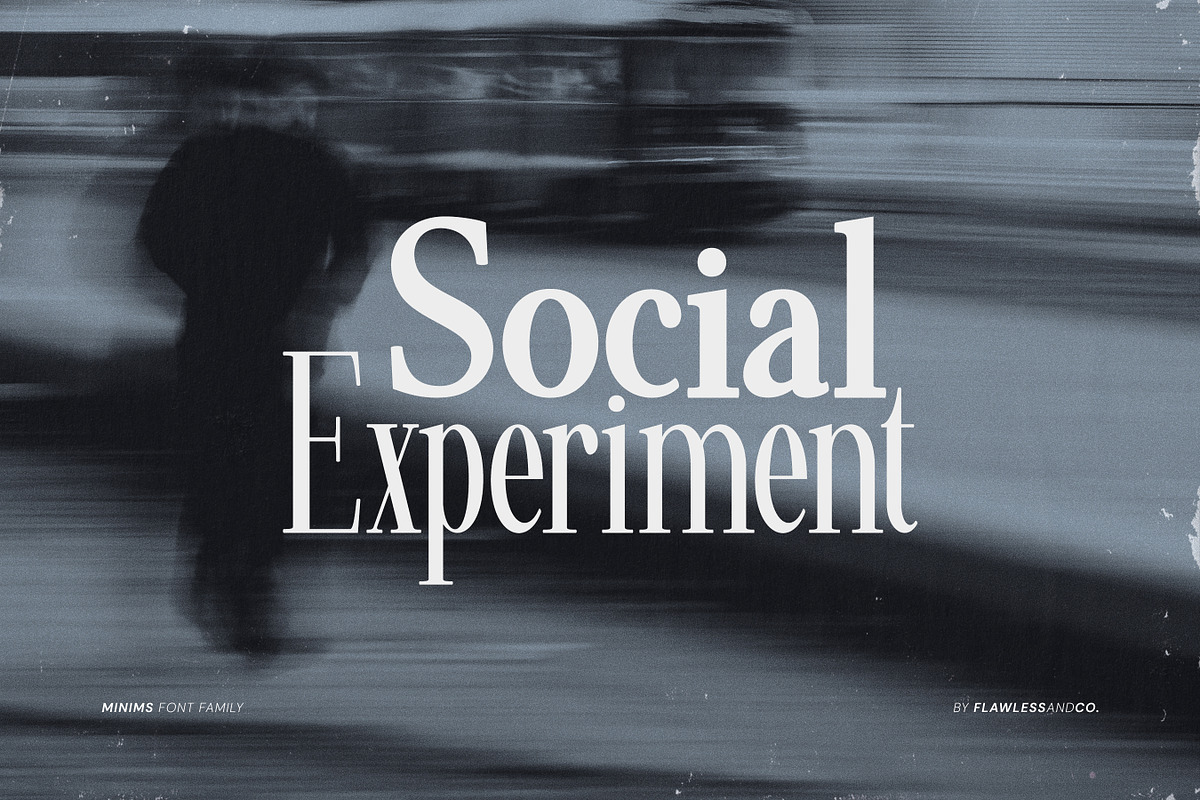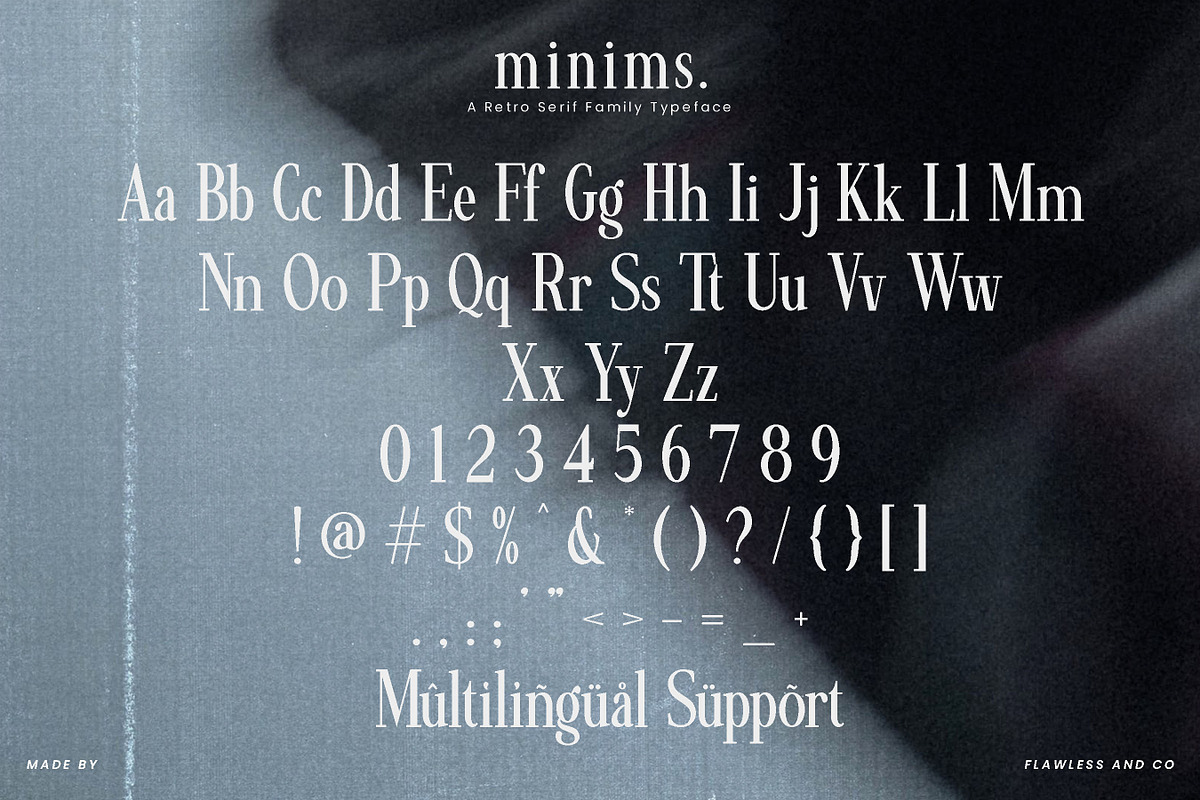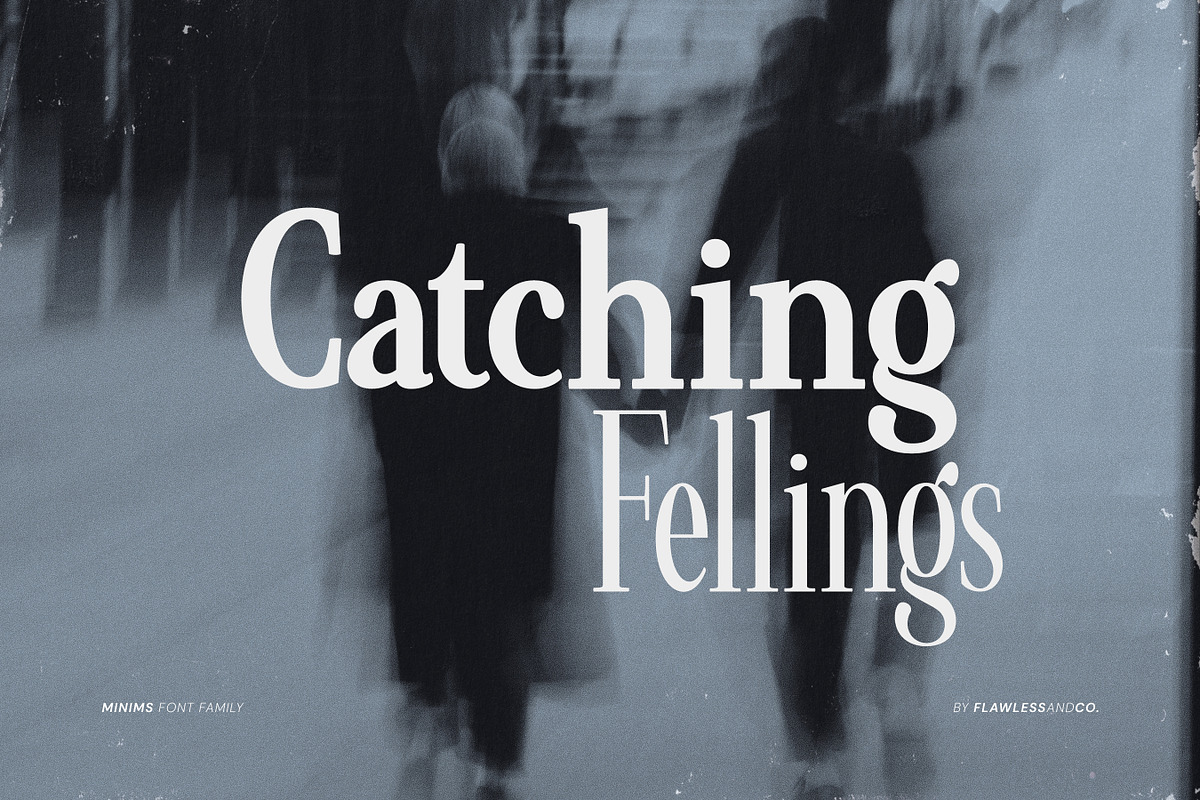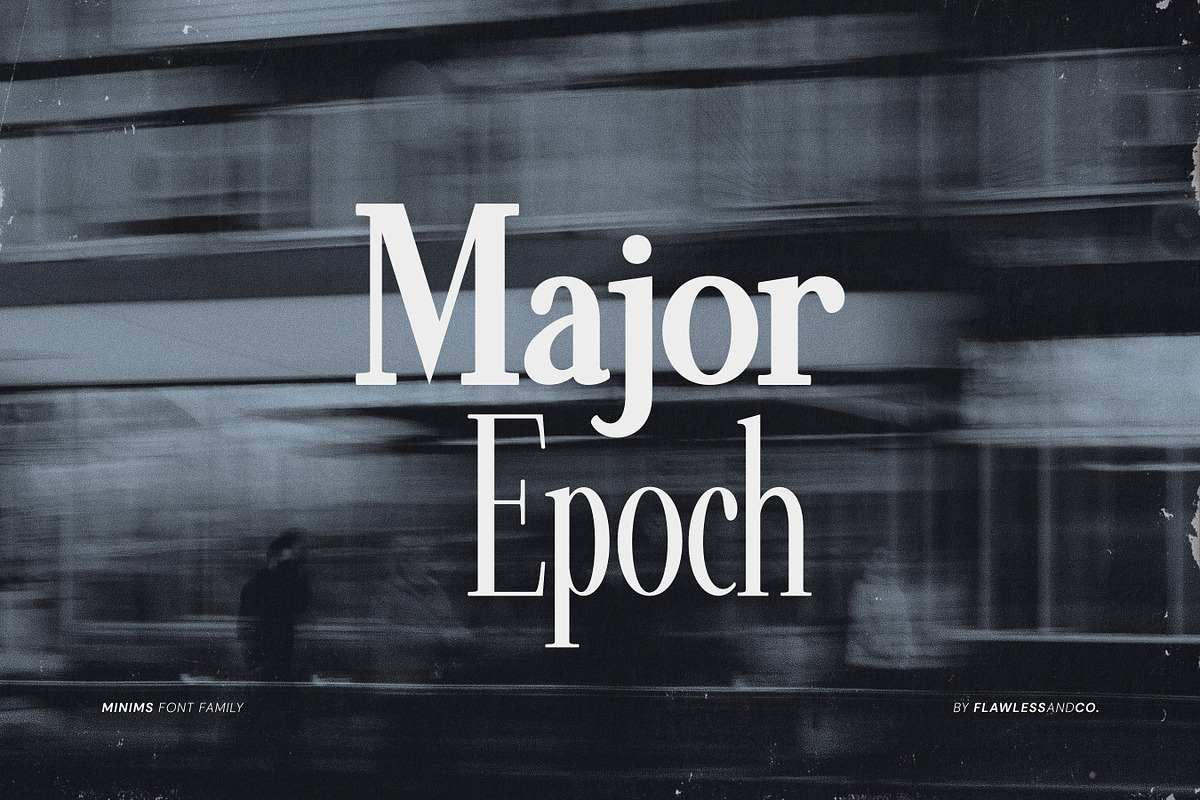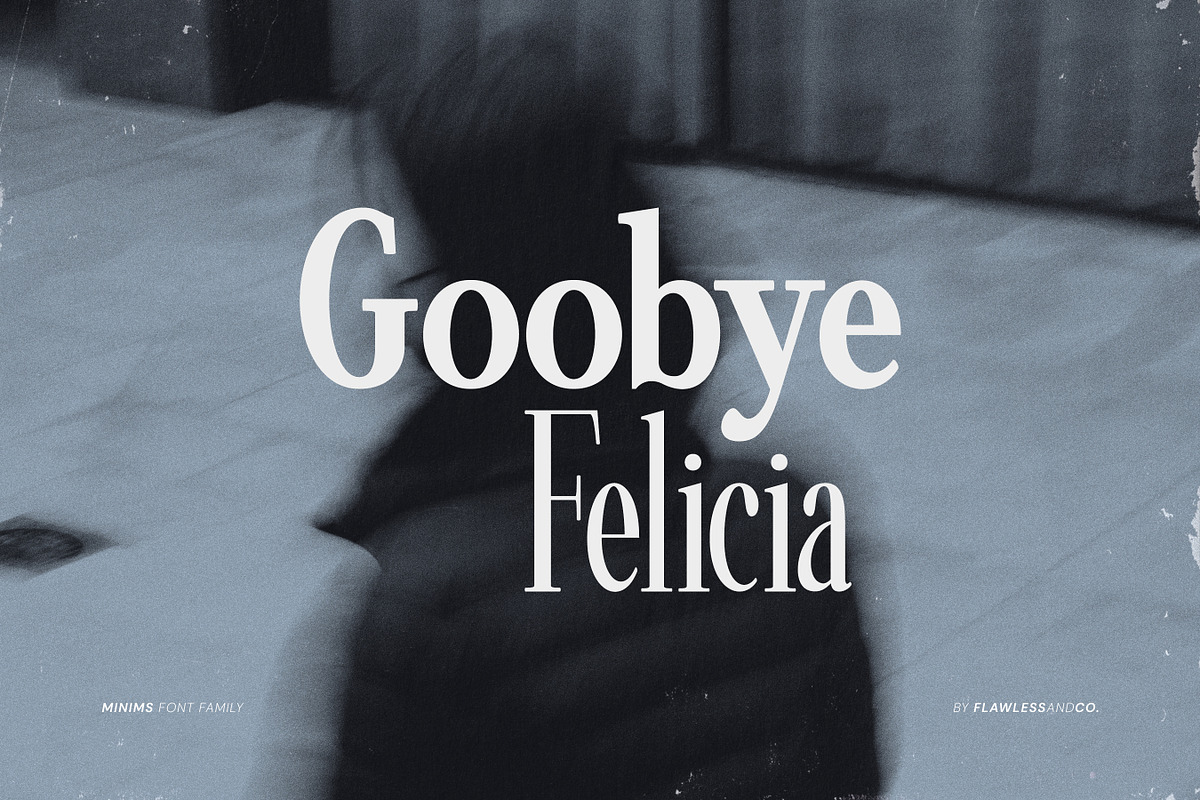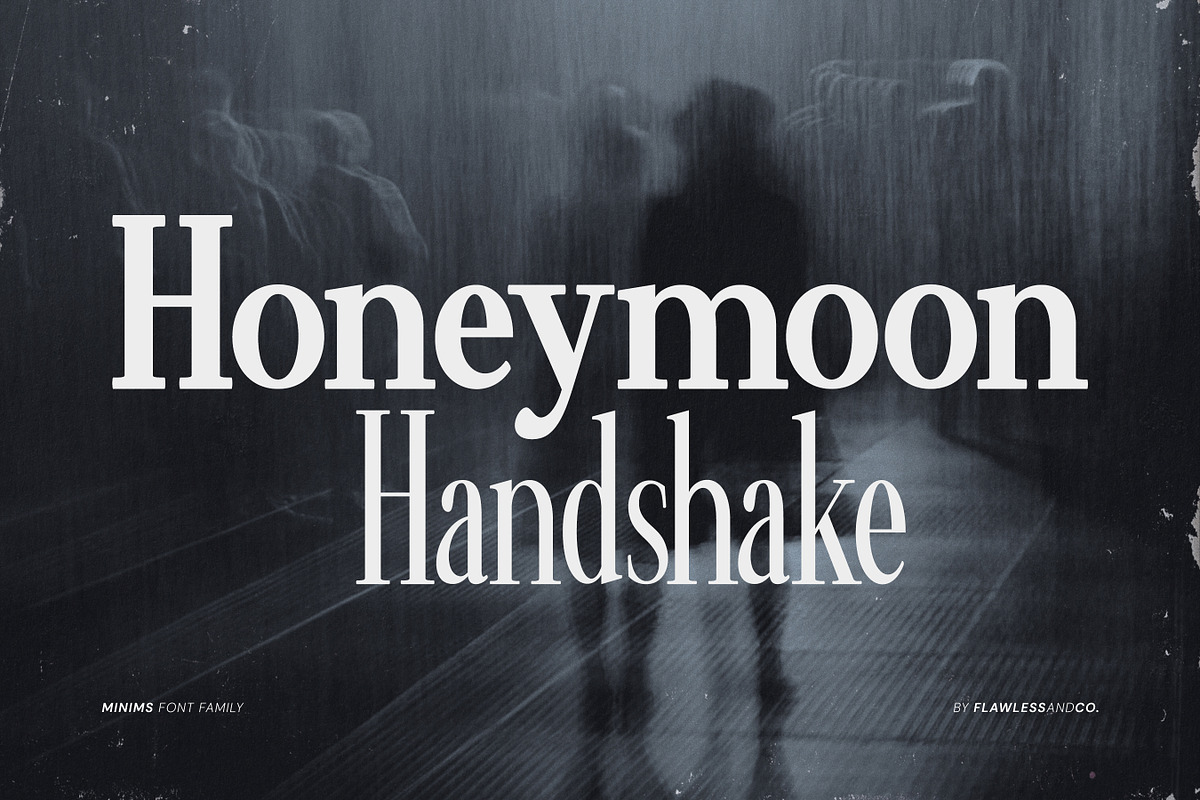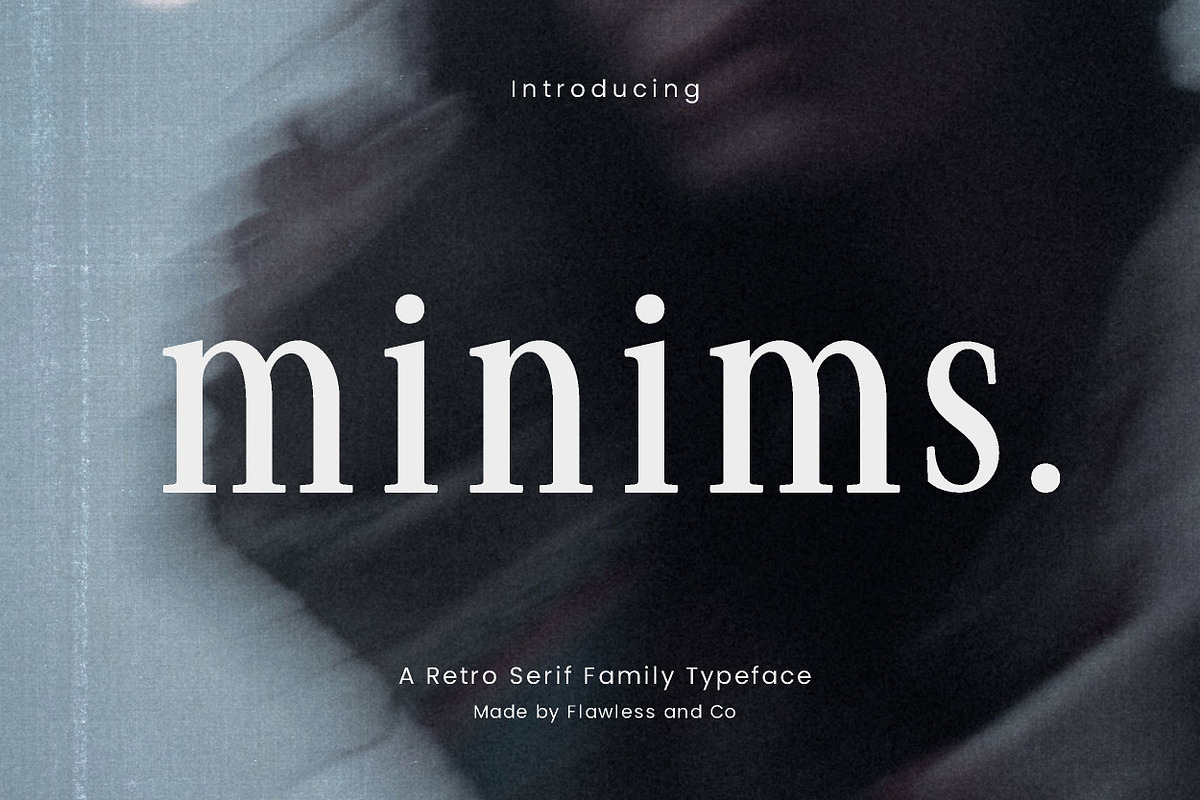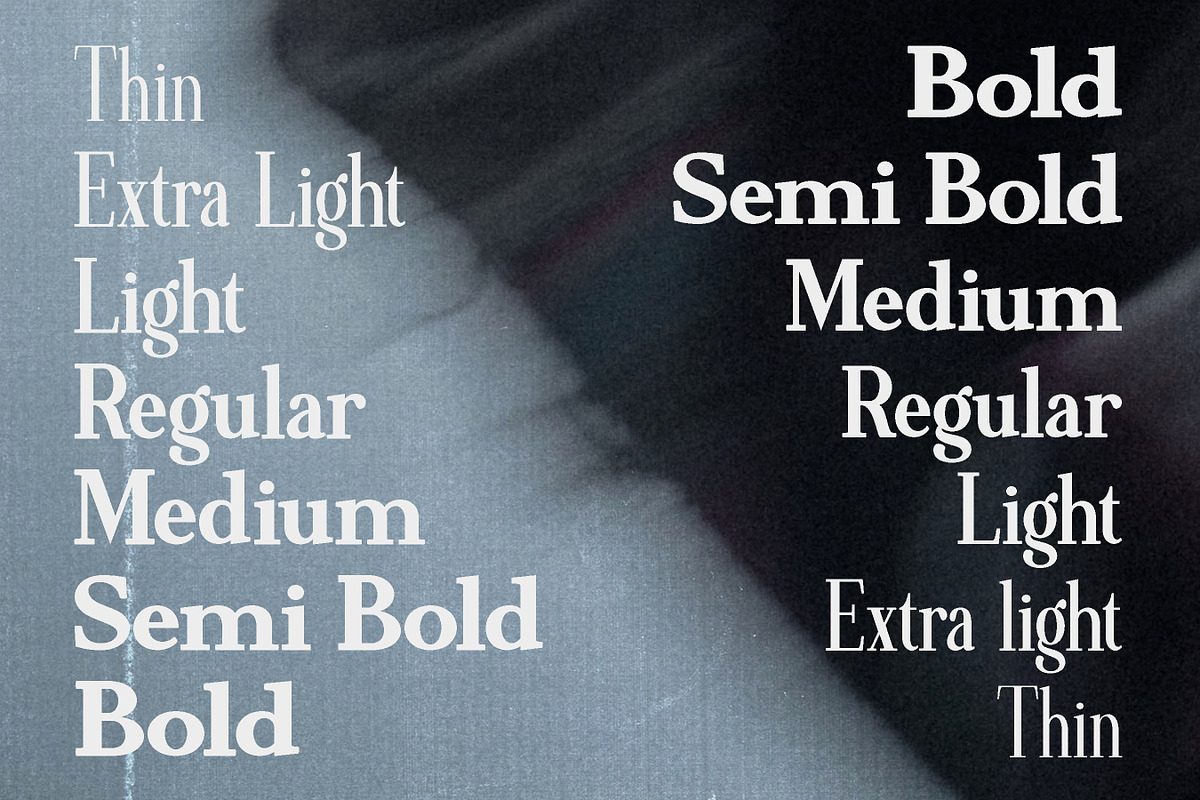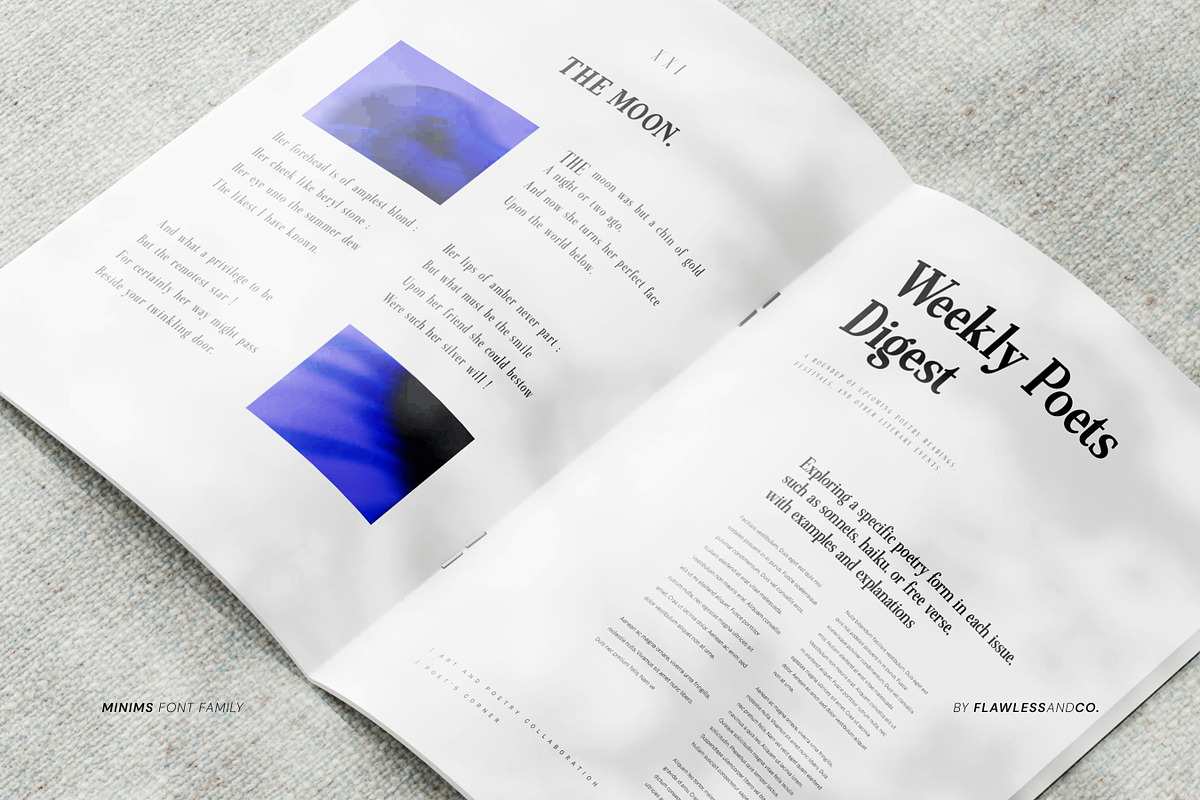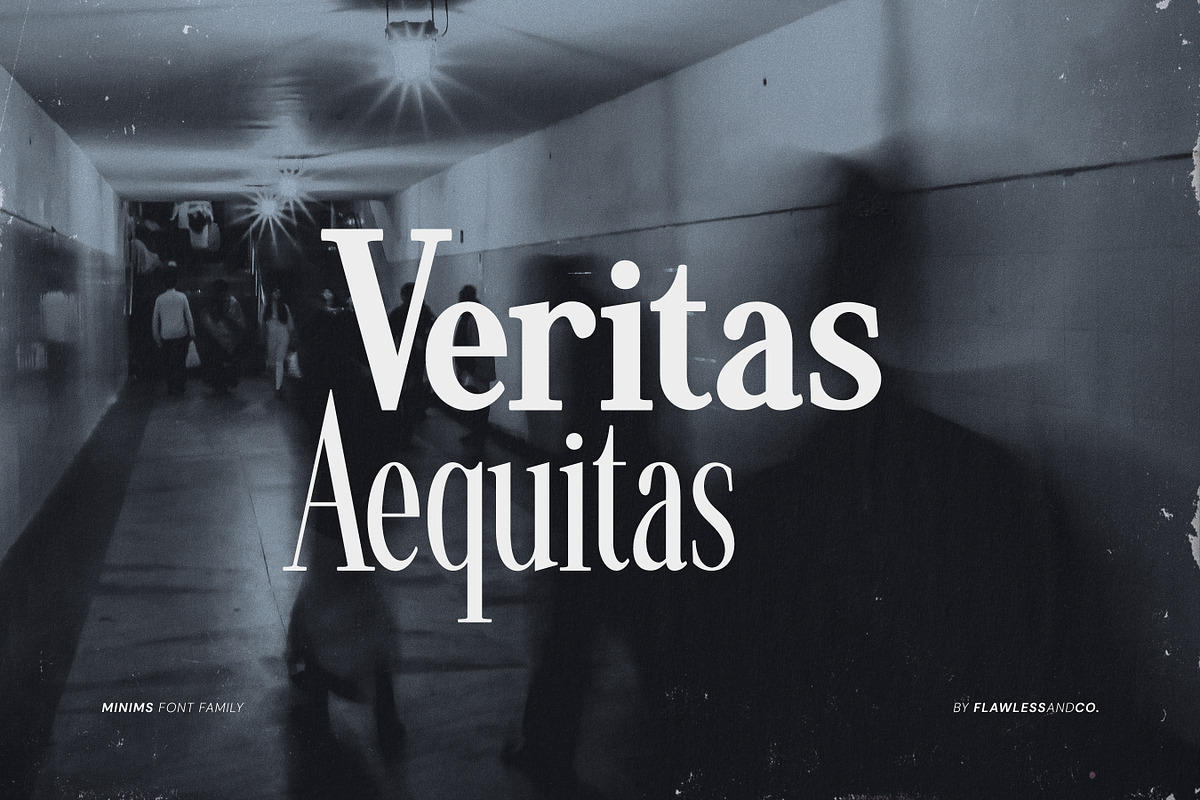
Minims - Serif Retro Family Series
Introducing "Minims - Retro Serif Family Font". Dive into the diverse world of typography with "Minims", a comprehensive typeface that goes beyond conventional limits. This font family is a symphony of styles, offering Thin, Extra Light, Light, Regular, Medium, Semi-Bold, and Bold variants, allowing you to craft designs that resonate with precision and personality. Explore the Versatility of Minims Retro Serif Family Series Font!
Multilingual Uppercase alphabet A-Z Lowercase alphabet a-z Numbers 0-9 Some punctuation